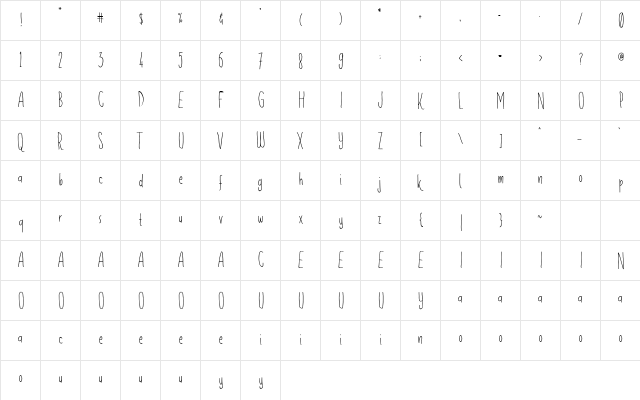
Flowerista Regular
| Foundry | TKK Studio |
| Designer | Iman |
Design Context for Flowerista Typeface
Flowerista is a composed and adaptable typeface that performs quietly and consistently across a wide range of design contexts.